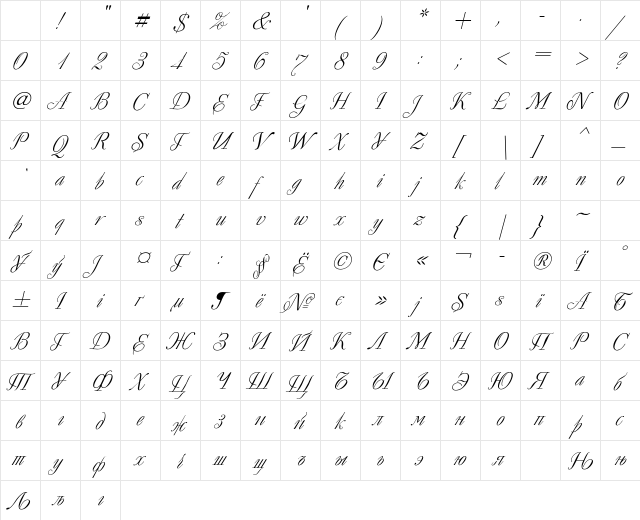
Complete Decor Italic glyph index. Displaying only characters natively supported by Decor Italic font.
Decor is a composed and adaptable typeface that performs quietly and consistently across a wide range of design contexts. The slanted form adds forward momentum and visual energy.
Pro Tip: Use Decor for emphasis, pull quotes, and subheadings where its slanted energy can add rhythm to the layout.